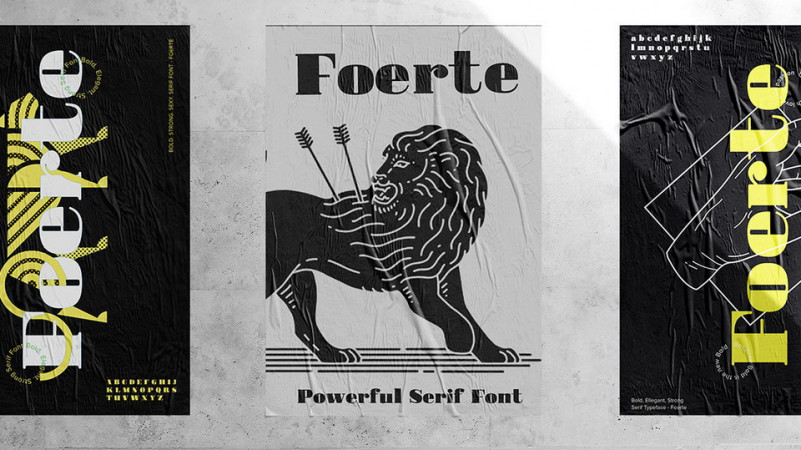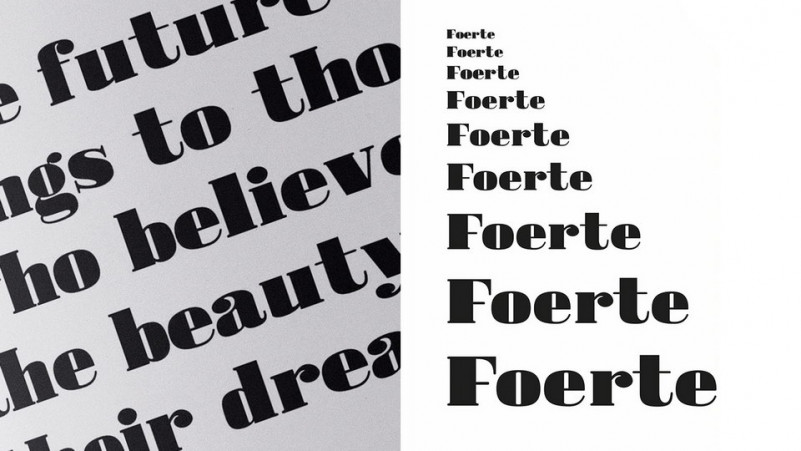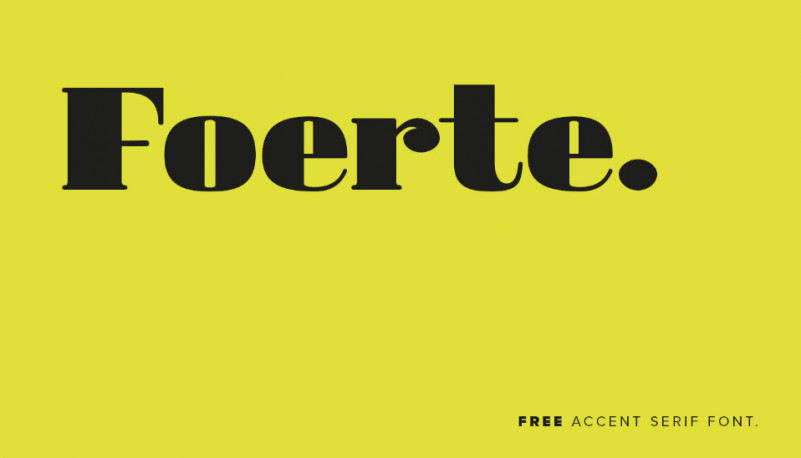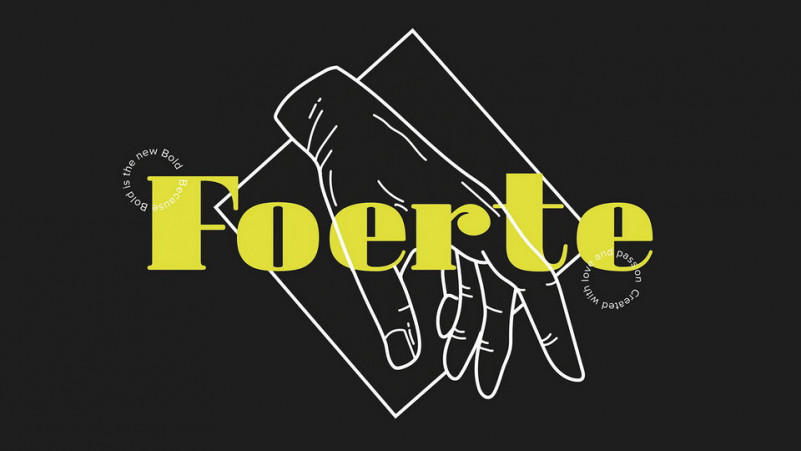
Foerte Serif Font
Hello! This is a bold, powerful and yet elegant serif font. This perfect blend of old and new will become your go-to font for many of your design needs. If you are looking for a display style suited to your design then it’s here! Introducing Foerte Font. It is a serif font Inspired by old time poster with a luxury style, elegant and strong so it’s can useful for any purpose. it’s perfect for you to show your design or product in professional way.